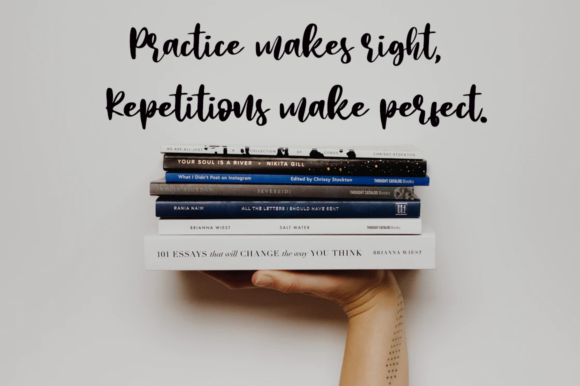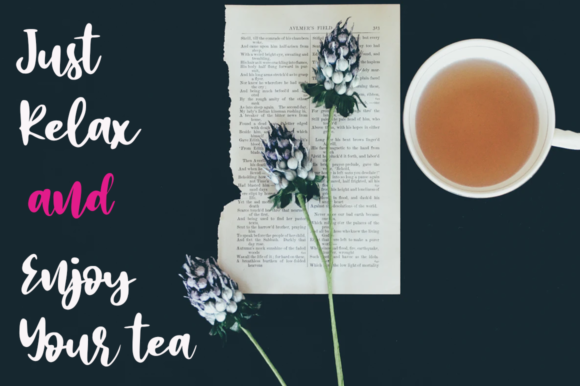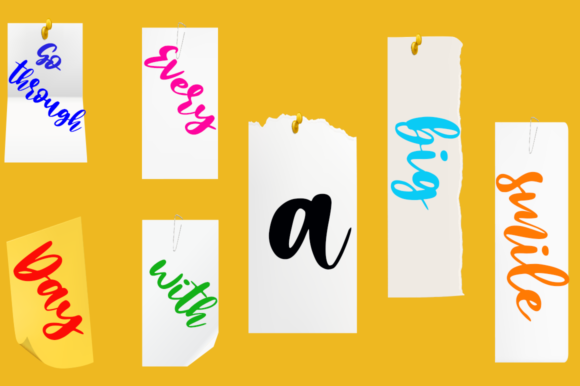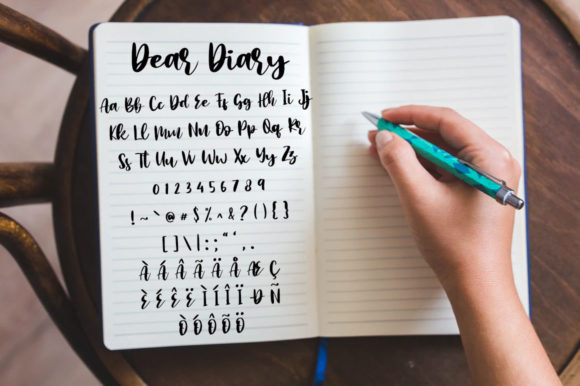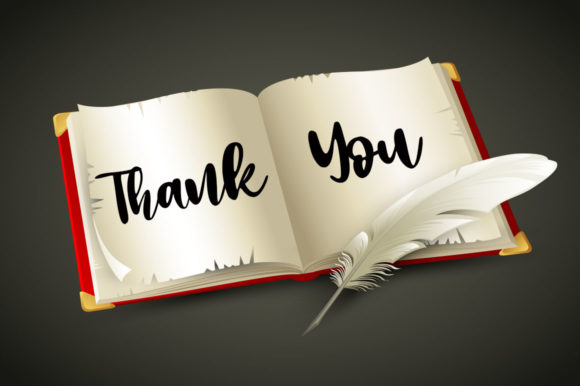
Discover the Charm of Dear Diary Font: A Cute Handwriting Font for Your Designs
Are you a designer or crafter looking for a font that adds a touch of personality to your projects? Look no further than the Dear Diary font. This adorable handwriting font is perfect for creating original and outstanding designs that stand out from the crowd. With its classic style and friendly feel, Dear Diary is sure to become your go-to font for a wide range of projects.
What Makes Dear Diary Font So Special?
Dear Diary font is a cute handwriting font that features an incredibly classic style, while still keeping a friendly feel. The font’s unique charm lies in its ability to evoke a sense of nostalgia and playfulness, making it perfect for designs that require a personal touch. Whether you’re working on a creative project, a scrapbooking layout, or a DIY craft, Dear Diary font is sure to add a touch of whimsy and fun.
Key Features of Dear Diary Font
- Classic Style: Dear Diary font boasts a classic style that is reminiscent of traditional handwriting fonts.
- Friendly Feel: Despite its classic style, Dear Diary font still manages to convey a friendly and approachable feel.
- Cute and Playful: The font’s playful and cute nature makes it perfect for designs that require a touch of personality.
- Handwriting Style: Dear Diary font is a handwriting font that mimics the look and feel of handwritten text.
Uses for Dear Diary Font
Dear Diary font is a versatile font that can be used for a wide range of projects, including:
- Scrapbooking: Add a personal touch to your scrapbooking layouts with Dear Diary font.
- DIY Crafts: Use Dear Diary font to add a touch of personality to your DIY crafts, such as cards, gift tags, and more.
- Creative Projects: Dear Diary font is perfect for creative projects, such as posters, flyers, and brochures.
- Journaling: Use Dear Diary font to add a touch of personality to your journaling pages.
Tips for Using Dear Diary Font
Here are a few tips for using Dear Diary font in your designs:
- Pair with Other Fonts: Dear Diary font pairs well with other fonts, such as sans-serif fonts and script fonts.
- Use in Headlines and Titles: Use Dear Diary font in headlines and titles to add a touch of personality to your designs.
In conclusion, Dear Diary font is a cute handwriting font that is perfect for designers and crafters looking to add a touch of personality to their projects. With its classic style and friendly feel, Dear Diary font is sure to become a staple in your font collection. So why not give it a try and see how it can elevate your designs?
Whether you’re a seasoned designer or a crafty DIY enthusiast, Dear Diary font is sure to inspire your creativity and help you create original and outstanding designs.